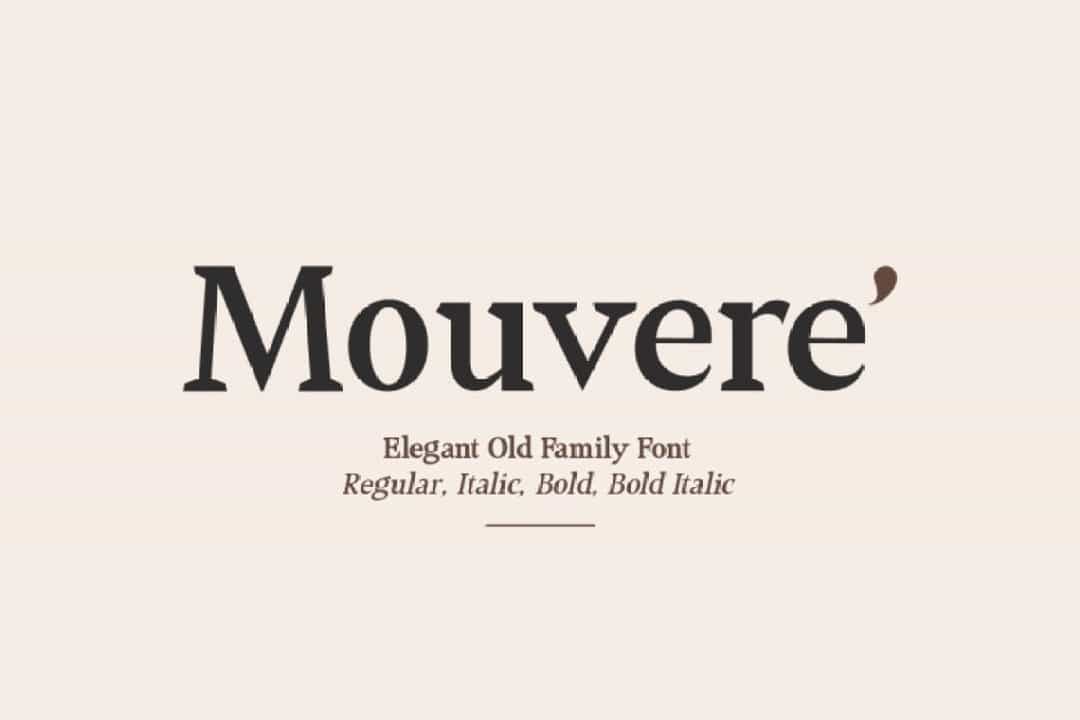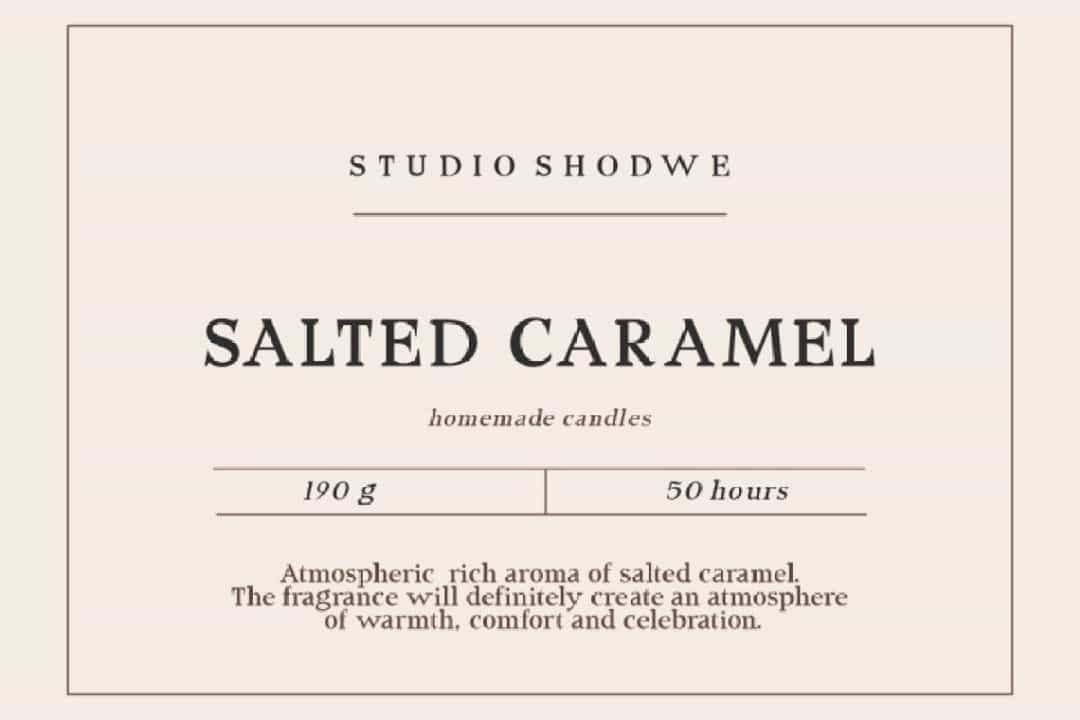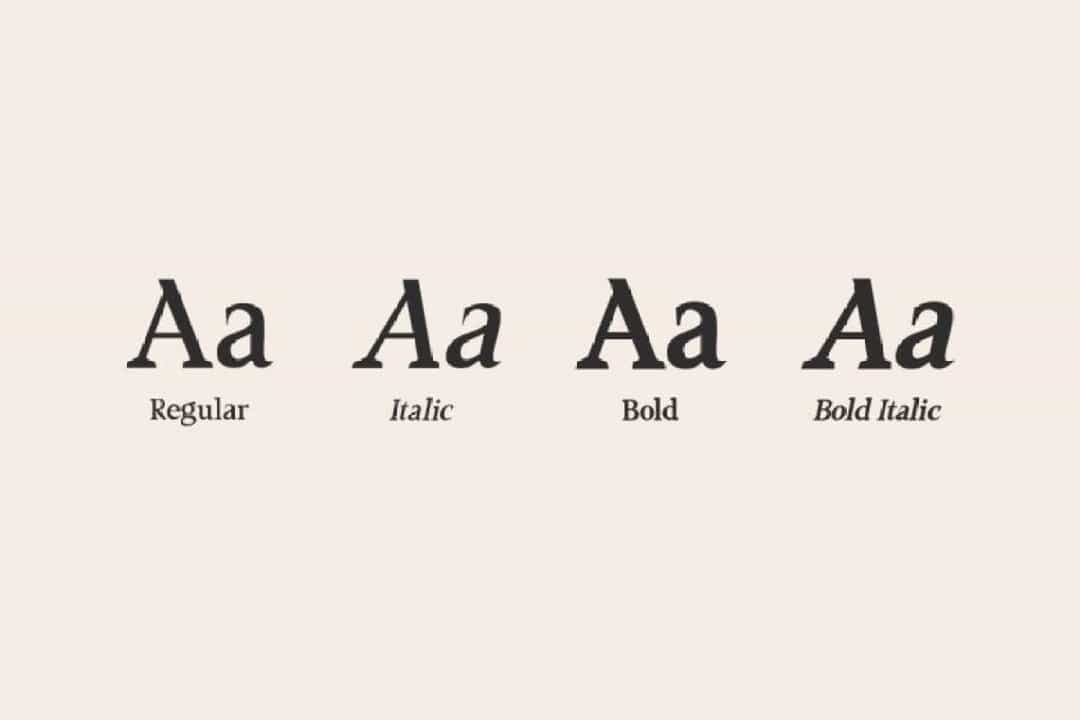
Discover Mouvere’ Font, part of the Serif collection—a versatile and unique font perfect for adding a personal touch to your projects. Download it for free and enjoy crafting designs with style, from invitations to social media posts. This font is available exclusively for personal use, giving you the freedom to create without limits. Unlock your creativity with Mouvere’ Font today!
Mouvere’s Old-style Serif Font Family comes with four font varieties – Regular, Italic, Bold Italic and Bold Italic – making this font exceptionally suitable for use across a range of design aspects and your brand identity.